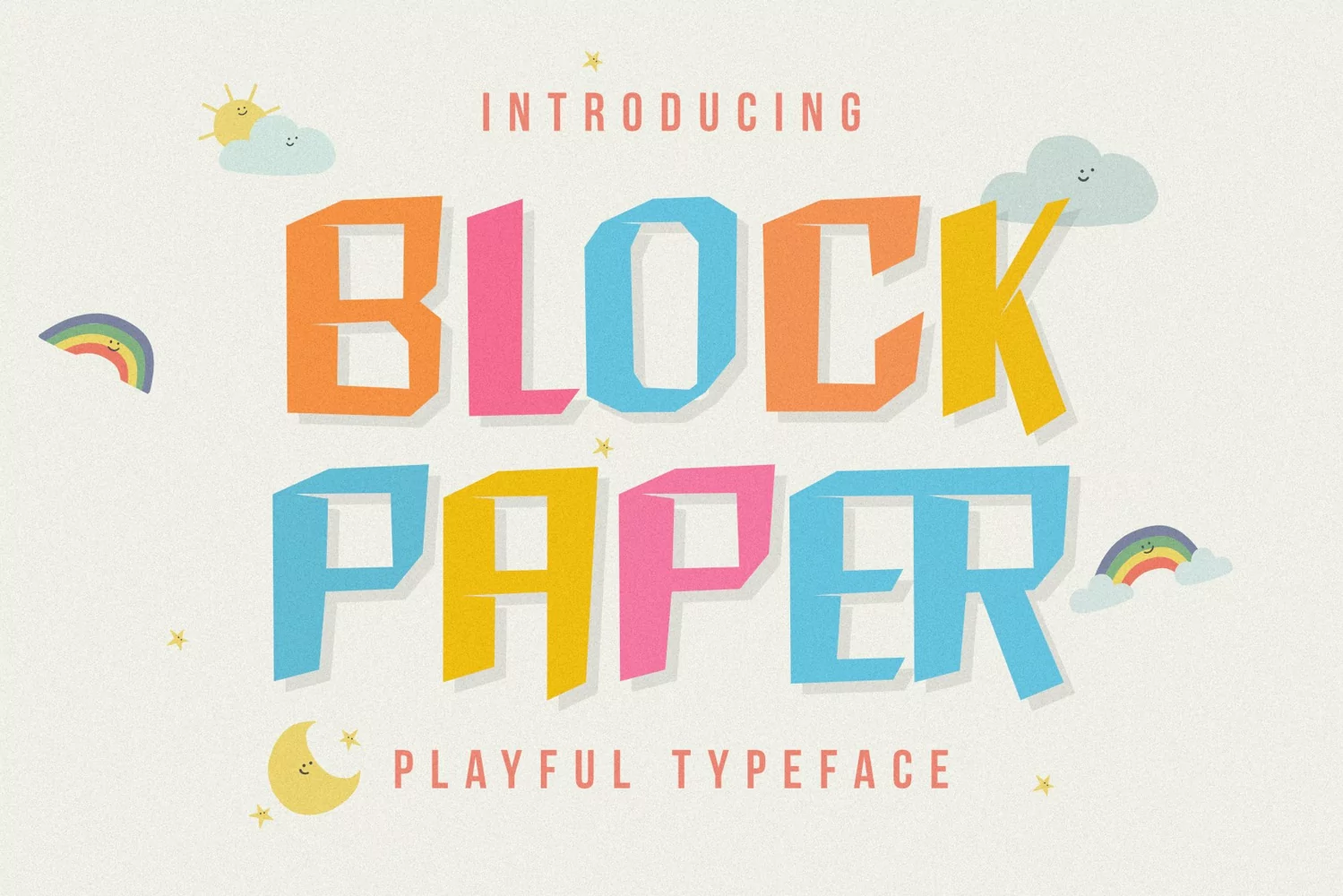
Block Paper - Playful Typeface
Block Paper
Block Paper - Playful Typeface is a square font inspired by squares/cubes. a font specially designed for designers with fun and colorful kids projects.
Block Paper is perfect for design, logos, social media, branding, advertising, product design, handwritten quotes, product packaging, headers, posters, merchandise, and other designs.